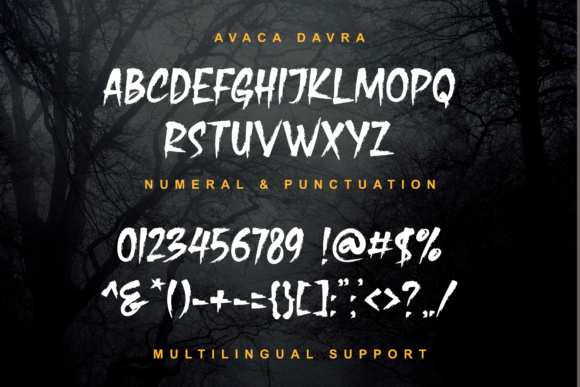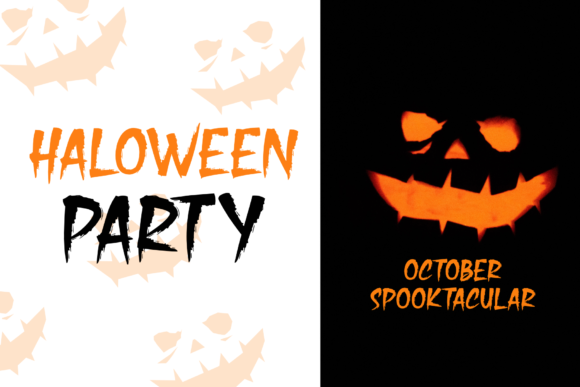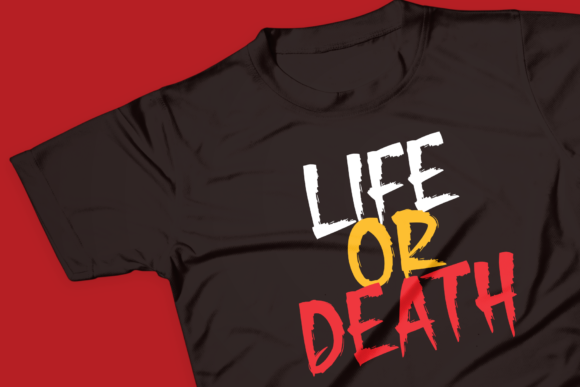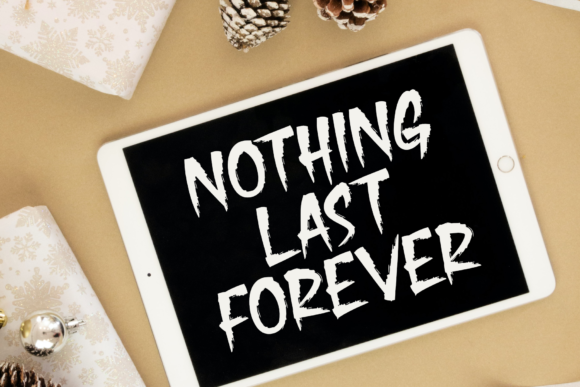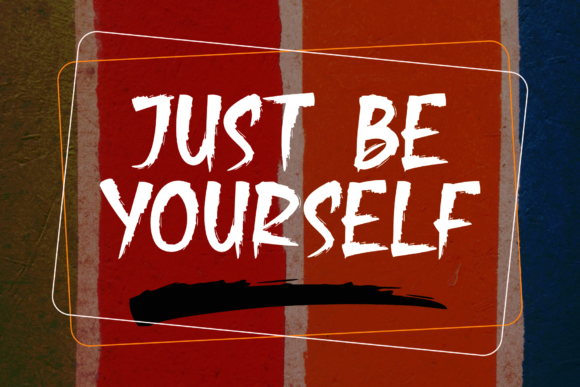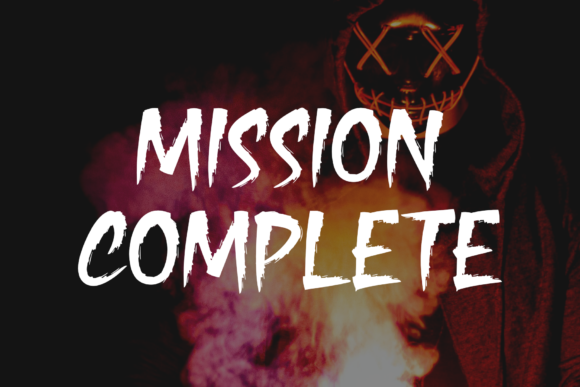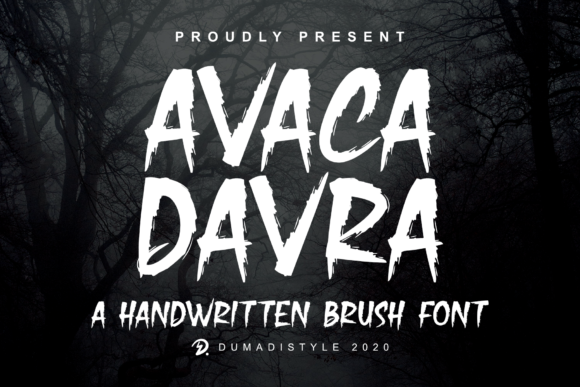
The Spooky-ooky Avaka Davra Font: A Bold Display Font for Halloween and Beyond
I still remember the design project that led me to discover the Avaka Davra font. It was a Halloween-themed invitation for a friend’s costume party, and I was struggling to find a font that would make the design pop. The project had a tight deadline, and I needed something that would instantly convey the spooky and playful vibe of the party. That’s when I stumbled upon Avaka Davra, a bold display font created with a unique brush pen. ✨
As I experimented with the font, I realized that it was exactly what I needed to make my design stand out. The bold, expressive letters seemed to dance on the page, adding a touch of whimsy and fun to the invitation. In this article, I’ll share my experience with Avaka Davra, including what I love about the font, its quirks and limitations, and how to use it on various design platforms.
An Honest Review of Avaka Davra
What I Love About Avaka Davra
• ✨ Unique brush pen style: Avaka Davra’s distinctive look sets it apart from other bold display fonts.
• ✅ Easily legible: Despite its bold and expressive nature, the font remains easy to read, even in smaller sizes.
• 🎃 Perfect for Halloween-themed designs: The font’s spooky and playful vibe makes it an ideal choice for Halloween-themed projects.
• 💻 Works well for digital and print designs: Avaka Davra’s versatility makes it suitable for a wide range of design applications.
While Avaka Davra is an excellent font, it’s not without its quirks. ⚠️ Here are a few limitations to consider:
• 🤔 Limited use cases: Due to its bold and expressive nature, Avaka Davra may not be suitable for body text or more formal designs.
• ⚠️ Glyph limitations: Some users may find that the font lacks certain glyphs or special characters.
The Backstory of Avaka Davra
Avaka Davra was designed by a team of creatives who wanted to create a font that would capture the essence of Halloween. The font’s unique brush pen style was inspired by traditional Halloween decorations and the spooky, mystical atmosphere of the holiday. 🎃
The design team spent countless hours perfecting the font, experimenting with different brush styles and techniques to achieve the perfect balance of boldness and legibility. The result is a font that’s both spooky and playful, perfect for adding a touch of Halloween magic to your designs.
Q: What is Avaka Davra, and what is it used for?
A: Avaka Davra is a bold display font created with a unique brush pen. It’s perfect for Halloween-themed designs, party invitations, and other creative projects that require a bold and playful look.
Q: Is Avaka Davra easy to read?
A: Yes, despite its bold and expressive nature, Avaka Davra remains easy to read, even in smaller sizes.